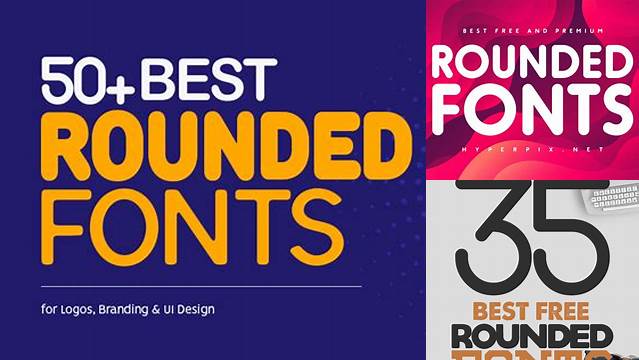
Top Free Rounded Fonts For Designers
Hey guys! Are you looking for the best rounded free fonts to add a touch of softness and friendliness to your designs? You've come to the right place! Rounded fonts are super versatile and can be used in everything from logos to websites to posters. They give off a warm, approachable vibe that's perfect for brands aiming to connect with their audience on a personal level. In this article, we're diving deep into the world of rounded fonts, exploring the top free options available, and giving you tips on how to use them effectively. So, let's get started and find the perfect rounded font for your next project!
1. What are Rounded Fonts?
Rounded fonts, as the name suggests, are typefaces that feature soft, curved edges instead of sharp corners. This simple design characteristic makes a huge difference in the overall feel of the font. Rounded fonts tend to appear more friendly, approachable, and modern compared to their sharper counterparts. Think about it – sharp edges can sometimes feel aggressive or formal, while rounded edges convey a sense of gentleness and warmth. This makes rounded fonts an excellent choice for projects that require a welcoming and contemporary aesthetic. Rounded fonts are often used in branding, websites, and marketing materials, where creating a positive first impression is crucial. They're also fantastic for designs aimed at children or families, as the soft edges feel safe and inviting. Understanding the nuances of rounded fonts will help you select the best rounded free fonts for your specific needs.
2. Why Use Rounded Fonts in Your Designs?
Using rounded fonts in your designs can significantly impact how your message is perceived. The rounded edges soften the overall look, making your design feel more approachable and less intimidating. This is particularly useful when you want to create a friendly and inviting brand image. Think about logos for companies that prioritize customer service or products aimed at children – rounded fonts are often the go-to choice. But it's not just about aesthetics. Rounded fonts can also improve readability, especially in digital formats. The smooth curves are easier on the eyes, reducing strain and making the text more comfortable to read for longer periods. This is crucial for websites and applications where user experience is paramount. Additionally, the modern and clean look of rounded fonts can help your design stand out. In a world saturated with traditional serif and sans-serif fonts, opting for a rounded typeface can give your project a fresh and contemporary edge. So, when considering the best rounded free fonts, remember that you're not just choosing a typeface; you're choosing a way to communicate with your audience.
3. Best Rounded Free Fonts for Logos
When it comes to logo design, choosing the right font is crucial, and the best rounded free fonts can be a game-changer. Logos need to be memorable, versatile, and reflective of the brand's personality. Rounded fonts, with their friendly and approachable nature, are a fantastic choice for businesses looking to create a welcoming image. For instance, a tech startup might use a rounded sans-serif font to convey innovation and ease of use, while a children's clothing brand could opt for a playful, rounded typeface to appeal to its target audience. Some top contenders in this category include fonts like Nunito, Quicksand, and Comfortaa. These fonts offer a balance of readability and visual appeal, ensuring your logo looks great both online and in print. The key is to select a rounded font that aligns with your brand's values and aesthetic. A well-chosen font can make your logo stand out and leave a lasting impression. Exploring the best rounded free fonts for logos allows you to experiment with different styles and find the perfect fit for your brand identity.
4. Rounded Fonts for Website Design
Website design requires fonts that are not only visually appealing but also highly readable. The best rounded free fonts can strike this balance perfectly, providing a modern and user-friendly look for your website. Using rounded fonts for headings and body text can create a cohesive and inviting online experience. Think about how the soft edges of a rounded font can make your website feel more approachable and less intimidating to visitors. This is especially important for websites that aim to build trust and engagement. Popular choices for website design include fonts like Lato, Open Sans (when used with a rounded style), and Montserrat. These fonts are known for their clarity and legibility, making them ideal for large blocks of text. Additionally, they come in various weights and styles, giving you the flexibility to create a visually dynamic website. When selecting rounded fonts for your website, consider the overall design and the message you want to convey. The right font can enhance your website's aesthetic and improve the user experience. Remember, the goal is to choose the best rounded free fonts that make your content easy to read and enjoyable to engage with.
5. Free Rounded Fonts for Headlines
Headlines are the first thing people see, so choosing the right font is critical. The best rounded free fonts can make your headlines stand out and grab attention while maintaining a friendly and approachable vibe. Rounded fonts in headlines can create a sense of warmth and invitation, encouraging readers to delve deeper into your content. This is especially effective for blogs, websites, and marketing materials where you want to draw people in. Some excellent options for headlines include fonts like Baloo Bhai, Fredoka One, and Luckiest Guy. These fonts have a bold and playful character that's perfect for making a statement. However, it's essential to ensure that the rounded font you choose is still legible and doesn't overwhelm the reader. A good balance between visual appeal and readability is key. When selecting rounded fonts for headlines, consider the overall tone and message of your content. The right font can amplify your message and make a lasting impression. Exploring the possibilities of the best rounded free fonts for headlines can significantly enhance your design's impact.
6. Rounded Fonts for Body Text
Readability is paramount when it comes to body text. The best rounded free fonts for body text are those that are easy on the eyes and allow for comfortable reading over extended periods. While rounded fonts are often associated with headlines and logos, they can also work exceptionally well for body text, provided you choose a font with good legibility. Fonts like Open Sans (in its lighter weights), Roboto, and Nunito Sans are excellent choices. These fonts offer a clean and modern look while maintaining the soft, approachable feel of rounded typography. When selecting rounded fonts for body text, pay close attention to the font's weight and spacing. Too heavy or too condensed, and the text can become difficult to read. The goal is to choose a font that complements the overall design without distracting from the content. Remember, the best rounded free fonts for body text will enhance the reading experience and keep your audience engaged. Always prioritize clarity and comfort when making your selection.
7. Best Rounded Sans-Serif Fonts
Sans-serif fonts are known for their clean and modern look, and when combined with rounded edges, they create a particularly friendly and approachable aesthetic. The best rounded free fonts in the sans-serif category are versatile and can be used in a wide range of design projects. They work well for logos, websites, branding materials, and more. Rounded sans-serif fonts strike a perfect balance between contemporary style and inviting warmth. Some top contenders in this category include fonts like Montserrat, Quicksand, and Lato. These fonts are highly legible and come in various weights, giving you the flexibility to create visually appealing and functional designs. When choosing rounded sans-serif fonts, consider the overall tone and message of your project. The right font can enhance your design and effectively communicate your brand's personality. Exploring the best rounded free fonts in the sans-serif family can open up a world of possibilities for your design endeavors.
8. Free Rounded Serif Fonts
While rounded fonts are often associated with sans-serif typefaces, there are also some fantastic rounded serif fonts available. These fonts combine the classic elegance of serifs with the soft, friendly feel of rounded edges. The best rounded free fonts in the serif category can add a unique touch to your designs, making them stand out from the crowd. Rounded serif fonts are particularly well-suited for projects that require a blend of tradition and modernity. They can be used in everything from branding to editorial design to web design. A great example of a rounded serif font is Arvo, which offers a distinctive and readable style. When selecting rounded serif fonts, consider the overall aesthetic you want to achieve. These fonts can bring a touch of sophistication and warmth to your designs. Exploring the best rounded free fonts in the serif family can help you create visually compelling and memorable projects.
9. Top Rounded Display Fonts
Display fonts are designed to grab attention and make a statement, and the best rounded free fonts in this category are no exception. Rounded display fonts are perfect for headlines, titles, and other prominent design elements where you want to create a strong visual impact. These fonts often feature unique and playful designs that can add personality and character to your projects. Think about using a bold, rounded display font for a poster or a website banner to draw the viewer's eye. Some popular choices for rounded display fonts include Fredoka One, Baloo Bhai, and Luckiest Guy. These fonts are bold, legible, and full of character, making them ideal for creating memorable designs. When selecting rounded display fonts, consider the overall tone and message of your project. The right font can enhance your design and effectively communicate your brand's personality. Exploring the best rounded free fonts for display purposes can significantly elevate your creative work.
10. Free Geometric Rounded Fonts
Geometric fonts are characterized by their clean, simple shapes and precise construction. When combined with rounded edges, they create a modern and minimalist aesthetic. The best rounded free fonts in the geometric category are incredibly versatile and can be used in a wide range of design projects, from logos to websites to print materials. Geometric rounded fonts offer a sense of balance and sophistication, making them a great choice for brands that want to convey a sense of professionalism and modernity. Some excellent options include Montserrat, Nunito, and Circular. These fonts are highly legible and come in various weights, giving you the flexibility to create visually appealing and functional designs. When choosing geometric rounded fonts, consider the overall look and feel you want to achieve. The right font can enhance your design and effectively communicate your brand's message. Exploring the best rounded free fonts in the geometric family can lead to some stunning results.
11. Using Rounded Fonts in Branding
Branding is all about creating a consistent and recognizable image, and font choice plays a crucial role. The best rounded free fonts can be a powerful tool in branding, helping to convey a sense of friendliness, approachability, and modernity. Rounded fonts are particularly well-suited for brands that want to connect with their audience on a personal level. Think about companies that prioritize customer service or products aimed at families – rounded fonts often align perfectly with their brand values. When using rounded fonts in branding, it's essential to consider the overall brand personality and the message you want to communicate. For example, a tech startup might use a clean, rounded sans-serif font to convey innovation and ease of use, while a children's brand could opt for a playful, rounded typeface to appeal to its target audience. The key is to select a font that reflects your brand's identity and resonates with your target demographic. Exploring the best rounded free fonts for branding allows you to create a cohesive and impactful brand image.
12. Rounded Fonts for Mobile Apps
In the world of mobile apps, user experience is king, and font choice is a critical aspect of that experience. The best rounded free fonts can significantly enhance the readability and overall appeal of your app's interface. Rounded fonts tend to be easier on the eyes, reducing strain and making the text more comfortable to read on smaller screens. This is especially important for apps that involve a lot of reading, such as news apps or e-readers. When choosing rounded fonts for mobile apps, prioritize legibility and clarity. Fonts like Roboto, Open Sans, and Nunito are excellent choices, as they are designed to be readable even at small sizes. Additionally, consider the overall design and aesthetic of your app. The font should complement the app's visual style and contribute to a cohesive user experience. Exploring the best rounded free fonts for mobile apps can help you create an app that is not only functional but also visually engaging.
13. Pairing Rounded Fonts with Other Fonts
Font pairing is an art, and knowing how to combine fonts effectively can elevate your design projects. When working with the best rounded free fonts, it's essential to choose complementary fonts that create a harmonious visual balance. Rounded fonts often pair well with fonts that have contrasting characteristics, such as fonts with sharper edges or more traditional serifs. This creates visual interest and prevents your design from looking monotonous. For example, you might pair a rounded sans-serif font like Montserrat with a classic serif font like Merriweather for a sophisticated and balanced look. When pairing rounded fonts, consider the overall tone and message of your project. The goal is to choose fonts that work together to enhance your design and effectively communicate your message. Experimenting with different combinations of the best rounded free fonts and other typefaces can lead to some stunning results.
14. Where to Find Free Rounded Fonts
Finding high-quality free fonts can be a challenge, but there are several excellent resources available online. If you're looking for the best rounded free fonts, it's essential to know where to start your search. Websites like Google Fonts, Font Squirrel, and DaFont offer a wide selection of free fonts, including many fantastic rounded options. Google Fonts is particularly useful, as it offers a vast library of open-source fonts that are easy to use on websites and in design projects. Font Squirrel is another great resource, known for its curated collection of high-quality free fonts. DaFont has a more extensive selection, but it's essential to check the licensing terms before using a font from this site. When searching for rounded fonts, be sure to use specific keywords like "rounded sans-serif" or "rounded geometric" to narrow down your results. Exploring these resources for the best rounded free fonts can help you find the perfect typeface for your next project.
15. Licensing for Free Rounded Fonts
Understanding font licensing is crucial when using free fonts in your design projects. While many rounded free fonts are available for personal and commercial use, it's essential to check the specific licensing terms before using a font in your work. Different font foundries and websites have different licensing agreements, and it's your responsibility to ensure that you comply with the terms. Common types of licenses include the SIL Open Font License (OFL), which allows for free use, modification, and distribution, and commercial licenses, which may have restrictions on how the font can be used. Always read the font's license agreement carefully to avoid any copyright issues. When downloading rounded fonts, look for a license file or check the website's terms of use for licensing information. Being mindful of licensing ensures that you can use the best rounded free fonts legally and ethically in your projects.
16. Popular Rounded Font Styles
Rounded fonts come in a variety of styles, each with its own unique character and appeal. Understanding the different styles can help you choose the best rounded free fonts for your specific needs. Some popular styles include rounded geometric fonts, which have a clean and modern look; rounded sans-serif fonts, which are versatile and highly legible; and rounded display fonts, which are bold and attention-grabbing. Geometric rounded fonts, like Montserrat and Nunito, are often used in branding and web design due to their minimalist aesthetic. Rounded sans-serif fonts, such as Lato and Open Sans, are excellent for body text and headlines, offering a balance of readability and visual appeal. Rounded display fonts, like Fredoka One and Baloo Bhai, are perfect for creating impactful headlines and titles. When exploring rounded fonts, consider the overall tone and message of your project. The right style can enhance your design and effectively communicate your brand's personality. Discovering the variety in the best rounded free fonts allows you to find the perfect match for any design challenge.
17. How to Install Rounded Fonts
Installing fonts is a straightforward process, but it can vary slightly depending on your operating system. Whether you're using Windows or macOS, knowing how to install rounded free fonts is essential for incorporating them into your design projects. On Windows, you can install a font by right-clicking on the font file and selecting "Install." Alternatively, you can copy the font file to the Fonts folder in the Control Panel. On macOS, you can install a font by double-clicking on the font file and clicking the "Install Font" button in the Font Book application. Once the font is installed, it will be available for use in all your applications. If you encounter any issues, restarting your computer can sometimes resolve the problem. When downloading rounded fonts, be sure to save them in a location that is easy to access. Installing the best rounded free fonts is the first step in bringing your design vision to life.
18. Rounded Fonts for Print Design
Print design requires fonts that are not only visually appealing but also highly legible when printed. The best rounded free fonts for print projects are those that maintain their clarity and readability even at smaller sizes. Rounded fonts can add a touch of friendliness and warmth to your print materials, making them more inviting and engaging. When choosing rounded fonts for print, consider the overall design and the message you want to convey. For example, a brochure for a children's product might benefit from a playful, rounded typeface, while a business card for a tech company could use a clean, rounded sans-serif font. Fonts like Open Sans, Lato, and Montserrat are excellent choices for print, as they are designed to be readable in both digital and print formats. Exploring the best rounded free fonts for print design allows you to create materials that are both visually appealing and highly effective.
19. Best Free Rounded Fonts for Social Media Graphics
Social media graphics need to grab attention quickly, and font choice plays a significant role in achieving this. The best rounded free fonts can help your social media posts stand out while maintaining a friendly and approachable vibe. Rounded fonts are particularly effective for social media because they feel modern and inviting, making your content more likely to resonate with your audience. When choosing rounded fonts for social media graphics, consider the overall tone and message of your brand. For example, a playful, rounded font might be perfect for a brand that targets a younger audience, while a cleaner, more minimalist rounded font could be better for a professional brand. Fonts like Baloo Bhai, Fredoka One, and Quicksand are popular choices for social media due to their bold and eye-catching designs. Exploring the best rounded free fonts for social media can help you create graphics that are both visually appealing and highly engaging.
20. Using Rounded Fonts in Presentations
Presentations require fonts that are clear, legible, and visually appealing. The best rounded free fonts can help you create presentations that are both professional and engaging. Rounded fonts tend to be easier on the eyes, making your slides more comfortable to read for your audience. When choosing rounded fonts for presentations, prioritize legibility and clarity. Fonts like Open Sans, Lato, and Roboto are excellent choices, as they are designed to be readable even from a distance. Additionally, consider the overall design and tone of your presentation. The font should complement your message and contribute to a cohesive visual experience. Using the best rounded free fonts in your presentations can help you deliver your message effectively and make a lasting impression.
21. Rounded Fonts for Resumes
Resumes need to be professional and easy to read. The best rounded free fonts can add a touch of modernity and approachability to your resume without sacrificing readability. While traditional fonts like Times New Roman and Arial are still common, using a rounded font can help your resume stand out. When choosing rounded fonts for your resume, prioritize clarity and professionalism. Fonts like Open Sans, Lato, and Roboto are excellent choices, as they are clean, modern, and highly legible. Avoid overly playful or decorative fonts, as they may distract from your qualifications. The goal is to choose a font that makes your resume easy to read and conveys a sense of competence and approachability. Exploring the best rounded free fonts for resumes can help you make a positive first impression.
22. Free Rounded Fonts for Newsletters
Newsletters need to be engaging and easy to read to keep subscribers interested. The best rounded free fonts can help you create newsletters that are both visually appealing and highly readable. Rounded fonts tend to be more approachable and less intimidating than fonts with sharp edges, making your content more inviting. When choosing rounded fonts for your newsletter, prioritize legibility and clarity. Fonts like Open Sans, Lato, and Nunito are excellent choices, as they are designed to be readable in both digital and print formats. Additionally, consider the overall design and tone of your newsletter. The font should complement your brand and contribute to a cohesive visual experience. Using the best rounded free fonts in your newsletters can help you keep your subscribers engaged and informed.
23. Combining Rounded Fonts with Bold Fonts
Combining different font styles can add visual interest and hierarchy to your designs. Pairing the best rounded free fonts with bold fonts is a great way to emphasize key information and create a strong visual impact. Bold fonts can be used for headlines, subheadings, or call-to-actions, while rounded fonts can be used for body text or other supporting elements. When combining rounded fonts with bold fonts, consider the overall balance and harmony of your design. The bold font should complement the rounded font without overpowering it. Fonts like Montserrat Bold and Open Sans Bold pair well with lighter rounded fonts like Nunito or Quicksand. Experimenting with different combinations of the best rounded free fonts and bold typefaces can lead to some visually stunning and effective designs.
24. Using Rounded Fonts in Infographics
Infographics are visual representations of data and information, and font choice is crucial for clarity and readability. The best rounded free fonts can help you create infographics that are both visually appealing and easy to understand. Rounded fonts tend to be less intimidating than fonts with sharp edges, making your data more approachable and engaging. When choosing rounded fonts for infographics, prioritize legibility and clarity. Fonts like Open Sans, Lato, and Roboto are excellent choices, as they are designed to be readable in both digital and print formats. Additionally, consider the overall design and tone of your infographic. The font should complement the visuals and contribute to a cohesive and informative piece. Using the best rounded free fonts in your infographics can help you communicate your message effectively and make a lasting impression.
25. Best Rounded Fonts for E-books
E-books require fonts that are comfortable to read for extended periods. The best rounded free fonts can enhance the reading experience by reducing eye strain and making the text more approachable. Rounded fonts often have a softer, more inviting feel than traditional fonts, which can make reading more enjoyable. When choosing rounded fonts for e-books, prioritize legibility and clarity. Fonts like Open Sans, Lato, and Nunito Sans are excellent choices, as they are designed to be readable on screens of various sizes. Additionally, consider the overall design and layout of your e-book. The font should complement the content and contribute to a seamless reading experience. Exploring the best rounded free fonts for e-books can help you create a visually appealing and reader-friendly product.
26. Rounded Fonts for Product Packaging
Product packaging is a crucial aspect of branding and marketing, and font choice can significantly impact how your product is perceived. The best rounded free fonts can help you create packaging that is both visually appealing and conveys your brand's personality. Rounded fonts often have a friendly and approachable feel, making your product more inviting to consumers. When choosing rounded fonts for product packaging, consider your target audience and the message you want to convey. For example, a playful, rounded font might be perfect for packaging aimed at children, while a cleaner, more minimalist rounded font could be better for a high-end product. Experimenting with different options among the best rounded free fonts will help you create packaging that stands out on the shelf and resonates with your customers.
27. Using Rounded Fonts in Web Banners
Web banners are designed to grab attention and encourage clicks, and font choice is a key element in achieving this. The best rounded free fonts can help you create web banners that are both visually appealing and convey your message effectively. Rounded fonts often have a modern and approachable feel, making your banner more likely to attract attention. When choosing rounded fonts for web banners, consider the overall design and the call-to-action. The font should be legible and easy to read, even at smaller sizes. Bold, rounded fonts like Fredoka One or Baloo Bhai can be excellent choices for headlines, while cleaner fonts like Open Sans or Lato can be used for body text. Finding the perfect match within the best rounded free fonts collection can significantly improve your banner's click-through rate.
28. Rounded Fonts for Business Cards
Business cards are essential for networking and making a professional impression. The best rounded free fonts can add a touch of modernity and approachability to your business card without sacrificing readability. While traditional fonts are often used, incorporating a rounded font can help your card stand out. When choosing rounded fonts for your business card, prioritize clarity and legibility. Clean, rounded sans-serif fonts like Lato or Open Sans are excellent choices, as they convey a sense of professionalism and are easy to read at small sizes. Avoid overly decorative fonts, as they may make your card look cluttered. Choosing the right option from the best rounded free fonts can help you create a business card that makes a positive and lasting impression.
29. Creating a Friendly Vibe with Rounded Fonts
Rounded fonts are known for their friendly and approachable character, making them an excellent choice for designs that aim to create a welcoming atmosphere. The best rounded free fonts can help you convey a sense of warmth and openness in your projects, whether you're designing a logo, website, or marketing materials. When using rounded fonts to create a friendly vibe, consider the overall tone and message of your design. For example, a children's brand might use a playful, rounded typeface to appeal to its target audience, while a customer service-oriented company could opt for a clean, rounded sans-serif font to build trust. Leveraging the personality of the best rounded free fonts can significantly enhance your brand's image and customer perception.
30. The Future of Rounded Fonts in Design
Rounded fonts have become increasingly popular in recent years, and their future in design looks bright. The best rounded free fonts continue to evolve, with new styles and variations emerging regularly. As design trends shift towards more minimalist and user-friendly aesthetics, rounded fonts are likely to remain a staple in the designer's toolkit. Their versatility and ability to convey a sense of friendliness and approachability make them well-suited for a wide range of applications. From web design to branding to print materials, rounded fonts are expected to play a significant role in shaping the visual landscape of the future. Staying updated with the latest trends in the best rounded free fonts can help you create designs that are both current and timeless.